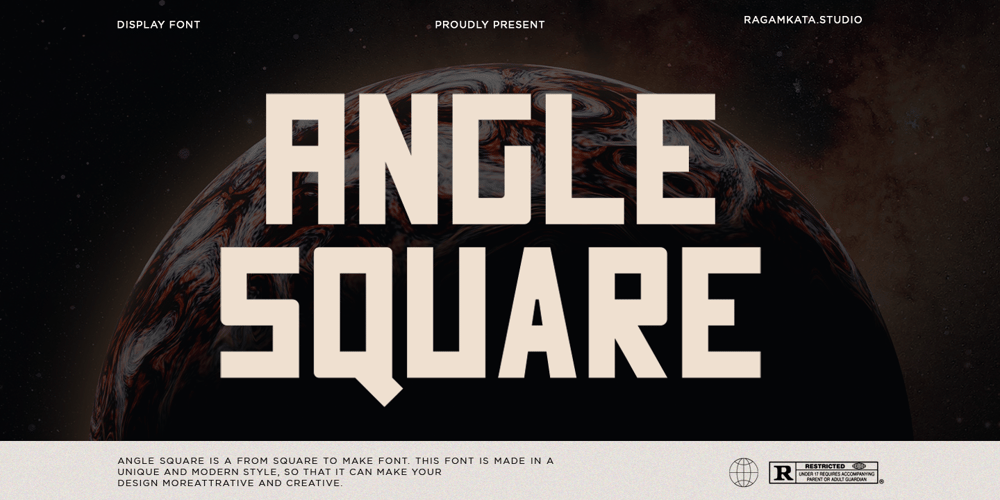
Angle Square Font Family was designed by Yogiswhara Dio Prakoso Riadi and published by RagamKata. Angle Square contains 2 styles and family package options. Angle Square is a from square to make font. This font is made in a unique and modern style, so that it can make your design moreattrative and creative.Included : Angle Square Regular Angle Square Outline Multilingual Support Alternates Thank, Have a wonderful day,Saystudio